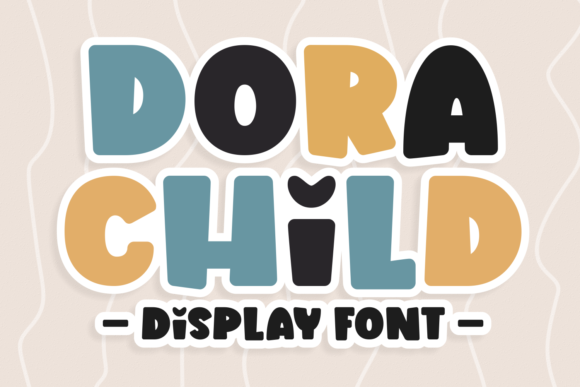
Unleashing Creativity with the Dora Child Font
Do you remember the moment when you first picked up a crayon or marker and let your imagination run wild? The world was full of endless possibilities, and your creativity knew no bounds. That sense of freedom and excitement is what designers and artists experience when they work with the right tools – and the Dora Child Font is one of them.
This fancy and chubby display font is perfect for bringing a touch of whimsy and playfulness to your designs. Whether you’re creating kids’ clothes, room decorations, party events, or posters, the Dora Child Font is sure to add a unique touch. Its versatility makes it a valuable asset for designers looking to add a little extra flair to their projects.
Dora Child Font Key Features
- Unique Characteristics: The Dora Child Font features a playful, child-friendly design with rounded edges and simple shapes, making it ideal for children’s educational materials, toys, and other products targeting young audiences.
Dora Child Font Review
I recently had the chance to work with the Dora Child Font, and I have to say it’s a mixed bag. Let’s dive into what works well and what doesn’t.
- The font has a playful and whimsical feel that’s perfect for children’s content.
- The characters are well-formed and easy to read, even at small sizes.
- The font is highly customizable, with a wide range of options for colors, sizes, and styles.
- The font’s design is somewhat inconsistent, with some letters looking more childish than others.
- The font may not be the best choice for formal or professional content, as it can come across as too playful.
- The font’s kerning could be improved, as some letter combinations look a bit cramped.
Overall, I think the Dora Child Font is a solid choice for children’s content, but it may not be the best fit for more formal or professional projects. With some tweaks to the design and kerning, I think this font has a lot of potential.
The Dora Child Font is ideal for:
- Children’s books and illustrations
- Education and learning materials
- Playful branding and marketing materials